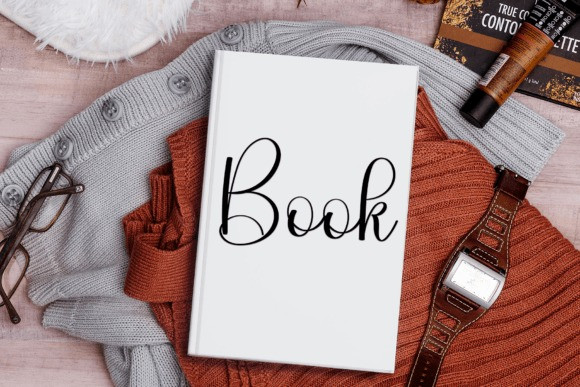
Anithing Something Font
Anithing Something Font is a beautiful and eye-catching font designed with a soft, unique touch. Its distinctive strokes give it a special character, making it meaningful and versatile for future use. With various characters, it’s perfect for design projects, crafts, and other creative works.